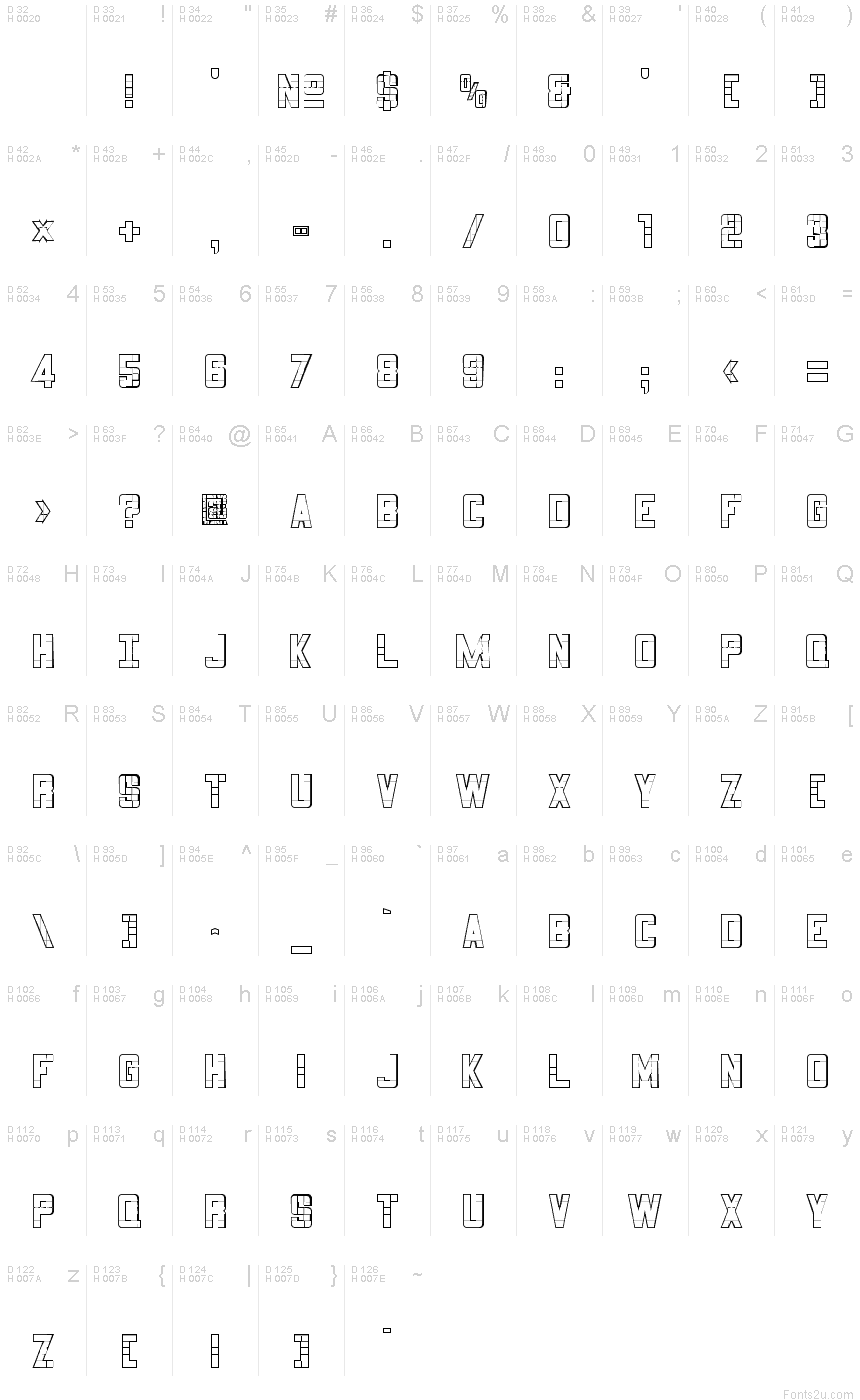
3x5 Outline
3x5 is based on the squared lettering used for art folders at the former Joseph Eastham High School in Salford, most letters being three squares wide and all of them five squares tall.